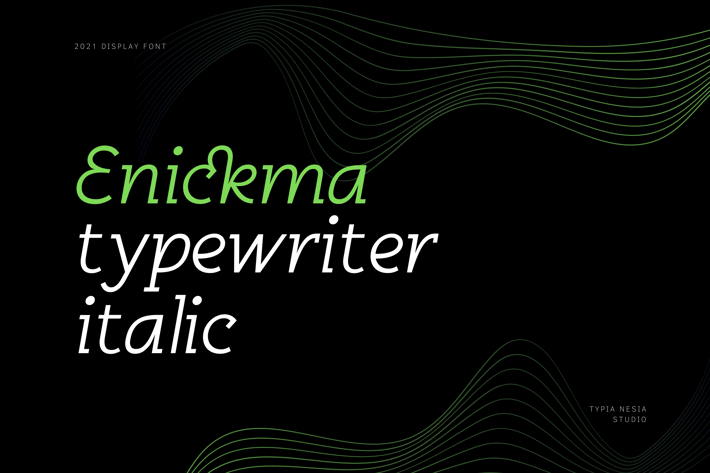
Enickma - Techno Typewriter Italic Font
Enickma - Modern Startup Techno Typewriter Italic Sans Serif Font - Gadget Technology Display Font
Enickma is Futuristic Tech Italic Sans Serif Font is perfect for your up coming projects. Such as logo branding, editorial design, stationery design, esport design, 80s retro design, game industry, sport racing, techno / gadget brand, digital music poster, apps startup design, modern advertising design, art quote, home decor, book/cover title, special events and any more.